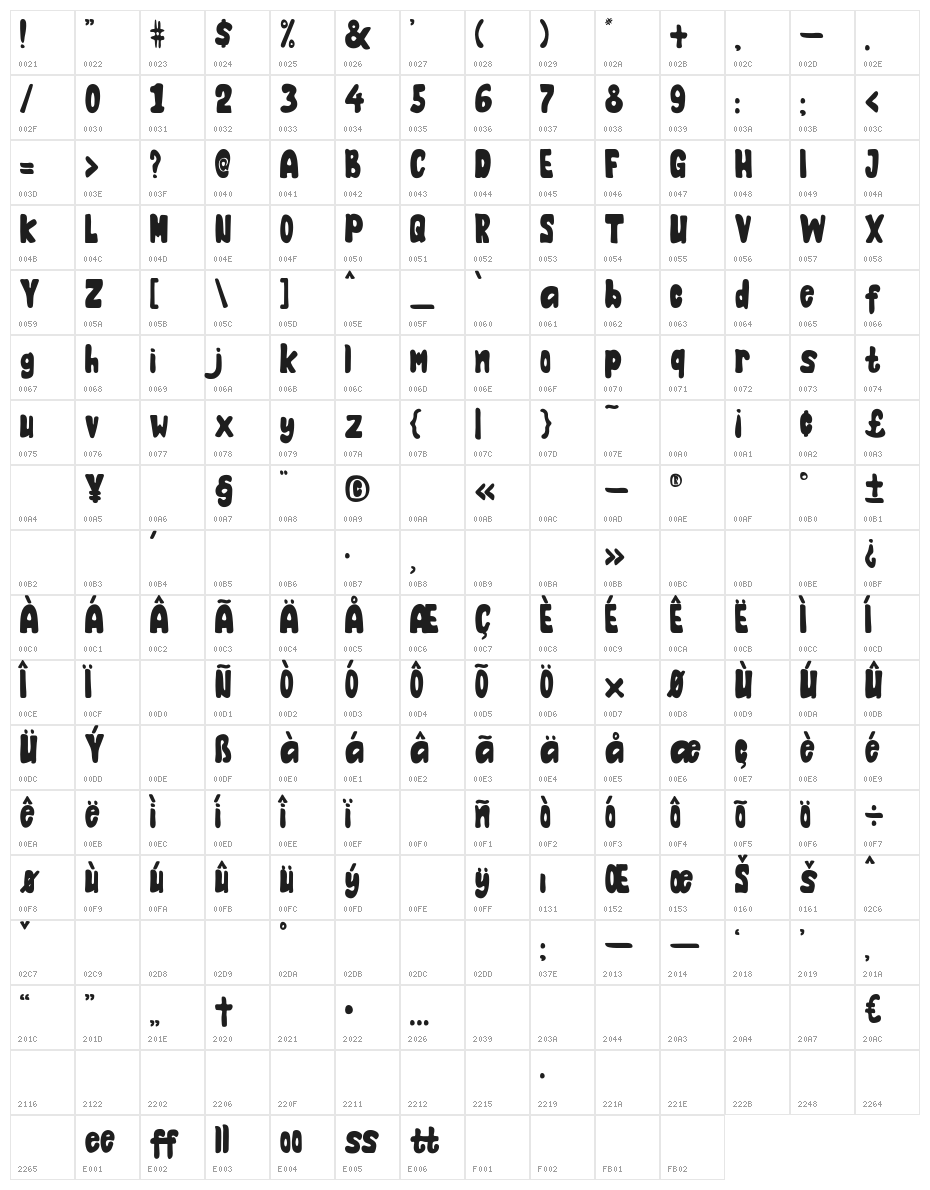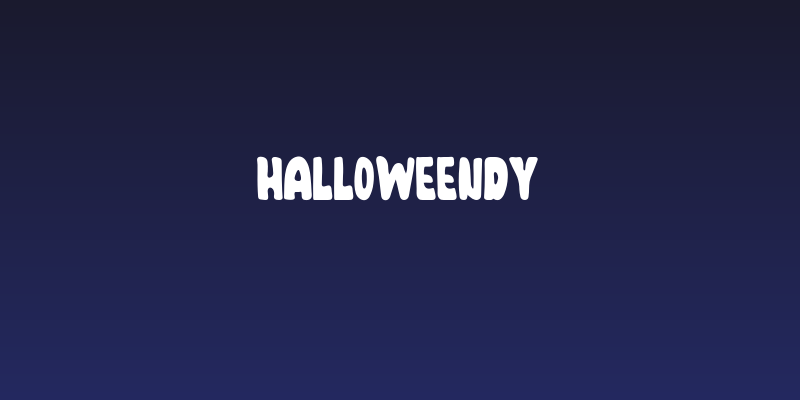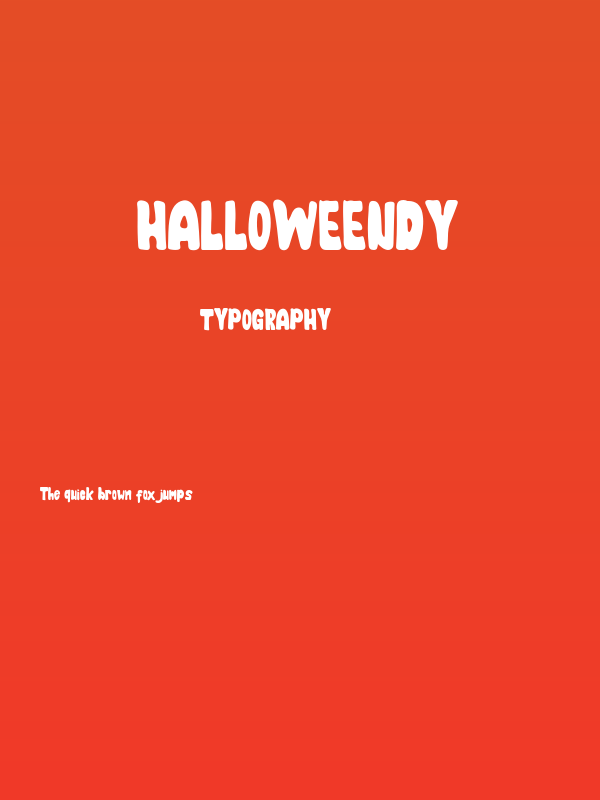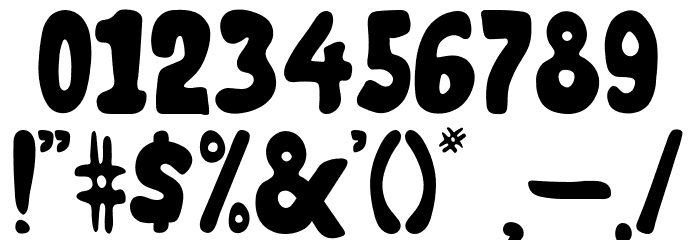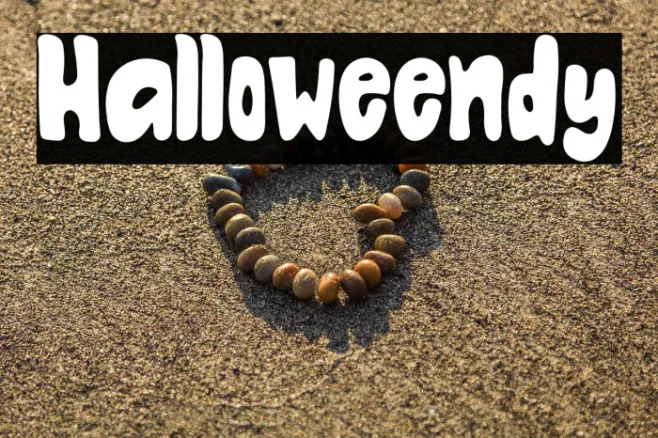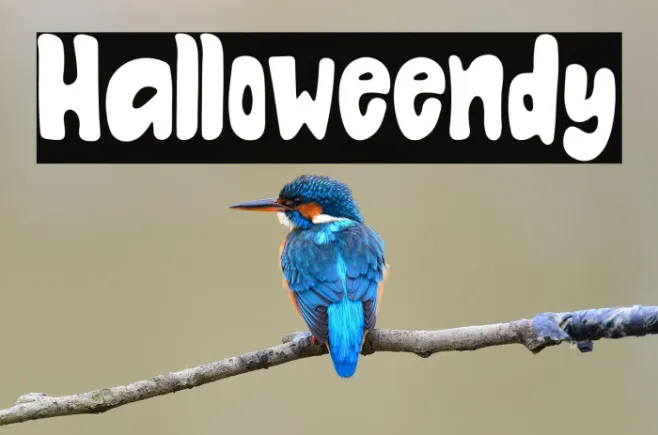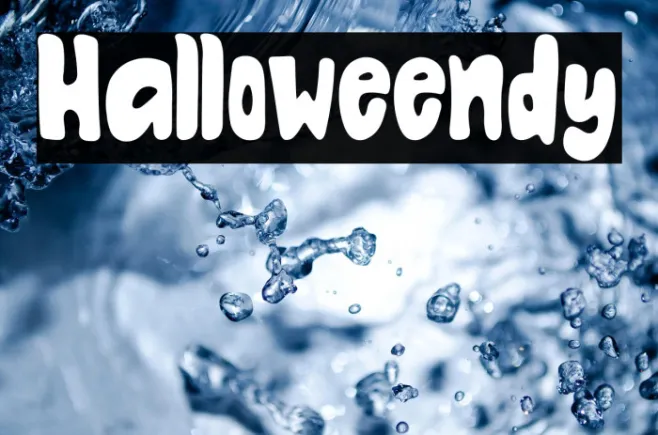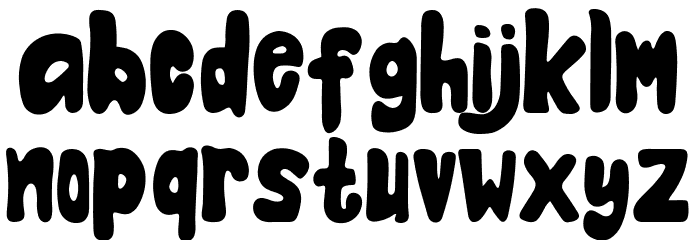
Halloweendy Font
Halloweendy Description
This font features a playful and bold design, characterized by its thick, rounded letterforms that convey a sense of fun and whimsy. The exaggerated curves and uneven strokes give it a hand-drawn appearance, making it ideal for creative and informal projects. The uppercase and lowercase letters maintain a consistent style, with a slightly irregular baseline that adds to its quirky charm. Numbers and special characters are equally bold and expressive, ensuring a cohesive look across all text elements. This font is perfect for capturing attention and adding a lively, festive touch to any design.
| Proposed Projects | Ideal for Halloween-themed designs, children's books, party invitations, and playful branding. |